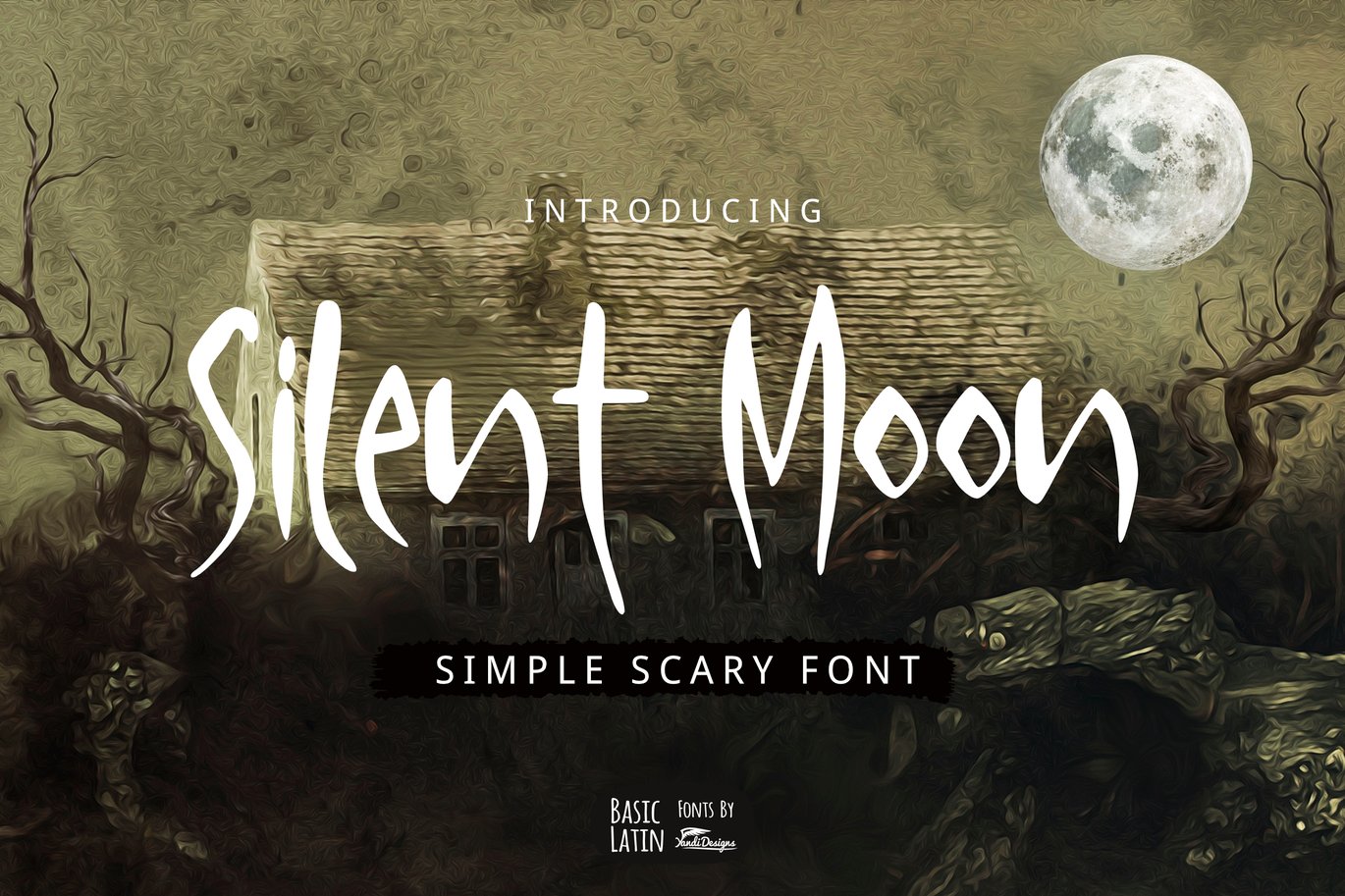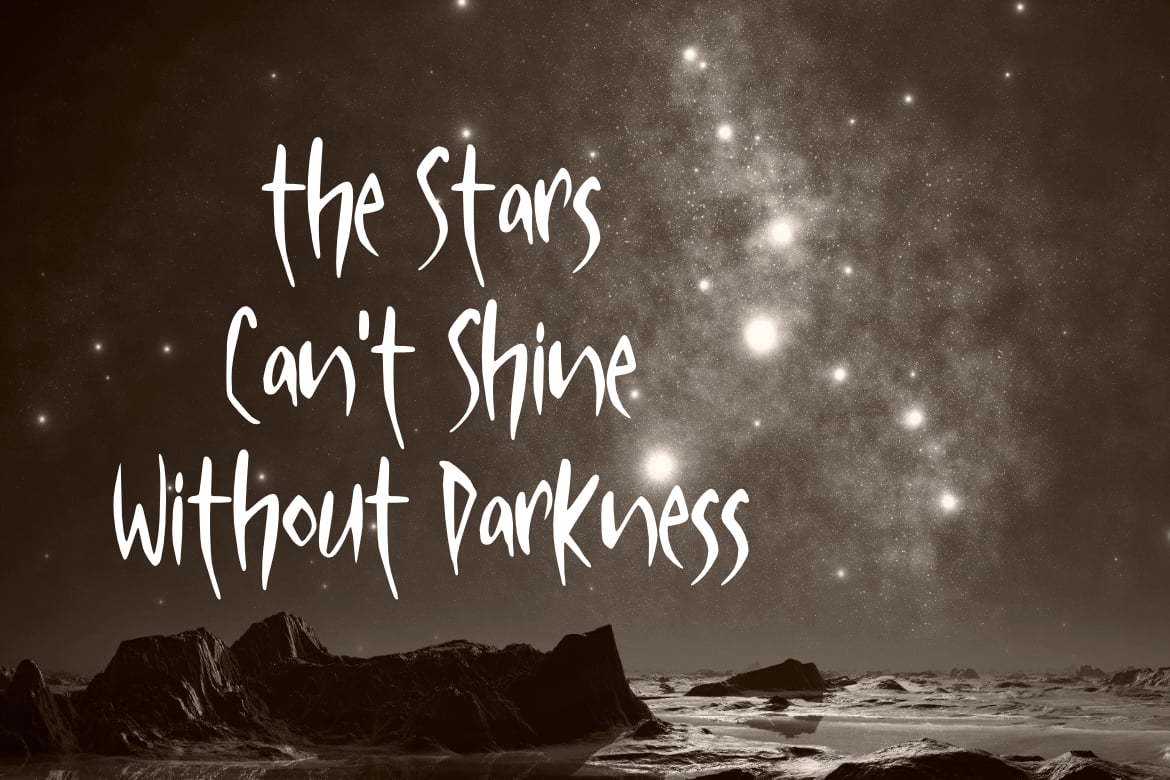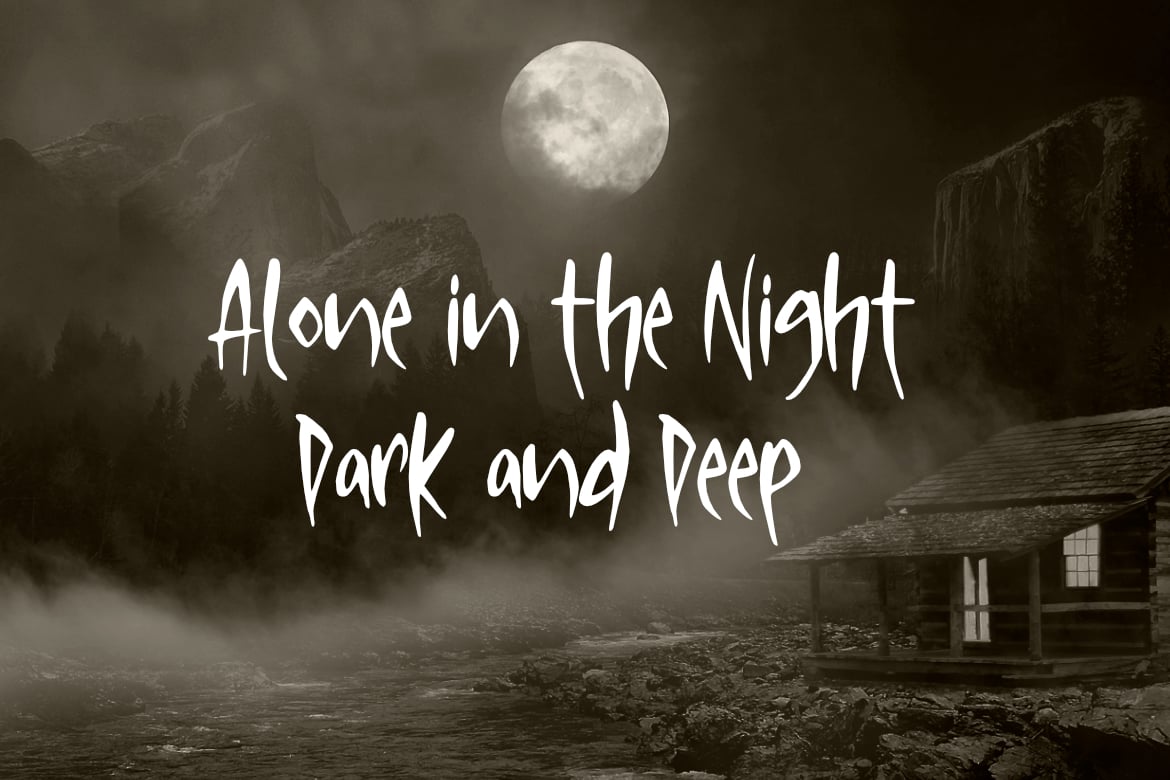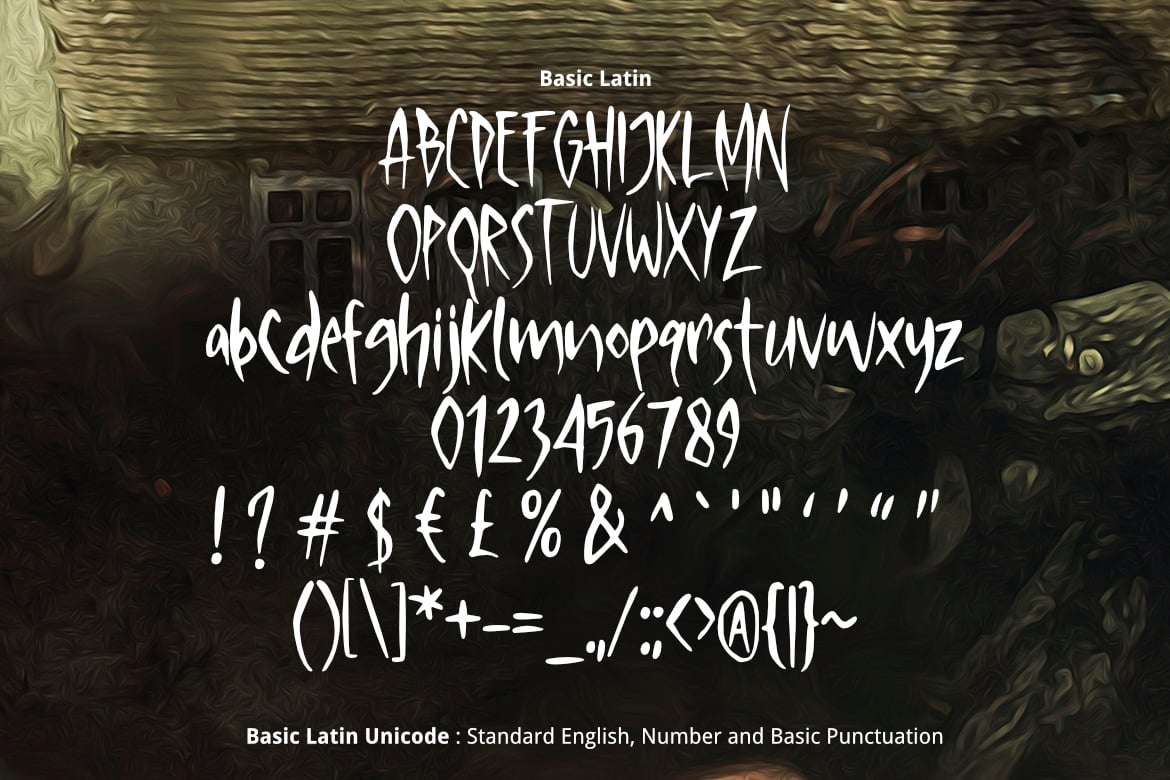
Silent Moon Scary Font
Silent Moon Font
Silent moon is lovely, simple, playful, scary, multipurpose handwritten font , suitable for many project children book, quotes, logo , heading , title etc.
Basic Latin (Standard English character , number, symbol)